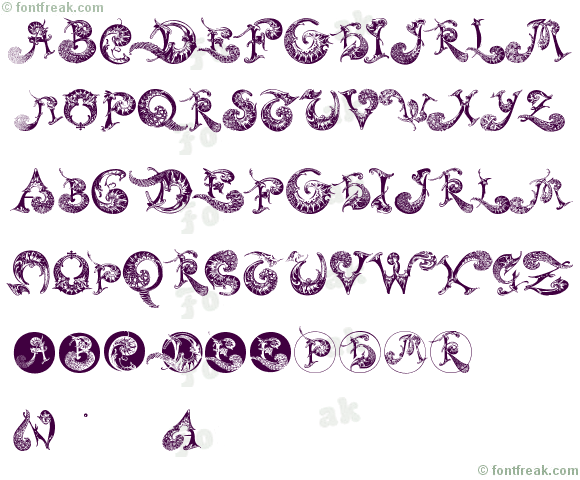
SchnoerkelCaps
SchnoerkelCaps is a captivating display font created by Manfred Klein, classified as a decorative typeface. This unique font draws inspiration from original drawings dating back to the 1900s, showcasing an intricate style that is both whimsical and elegant. Its visual characteristics are striking, featuring a variety of strokes that fluctuate dramatically in weight and contrast. The letters are adorned with playful, swirling embellishments that give each character a distinctive flair, making the font highly recognizable. The spacing is thoughtfully designed, allowing for readability while maintaining its decorative charm, ideal for a variety of creative projects.
Best suited for special occasions and artistic applications, SchnoerkelCaps shines in wedding invitations, where its ornate style can enhance the romantic aesthetic. It is also an excellent choice for movie posters, providing a unique touch that can draw in viewers. Additionally, restaurant menus can benefit from its decorative elements, adding a sense of personality to the dining experience. For graphic designers, this font offers an opportunity to create eye-catching branding materials, while content creators can use it to elevate their social media graphics.
The target audience for the SchnoerkelCaps font includes graphic designers, small business owners, and content creators who seek to make their projects stand out with a distinctive aesthetic. The free availability of the SchnoerkelCaps font free download further enhances its accessibility, allowing creative minds to incorporate this exceptional typeface into their work without financial barriers.
What truly sets SchnoerkelCaps apart is its ability to blend artistic flair with functionality. Its unique design not only captures attention but also adds a touch of elegance to any project, making it a valuable addition to any designer's font library.